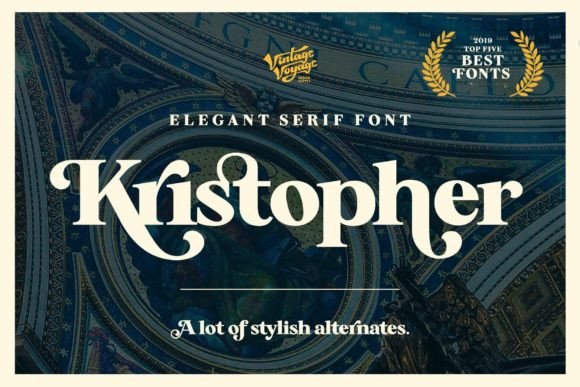
Are you looking for a versatile and elegant serif font that can bring a retro influence to your design projects? Look no further than Kristopher Font, created by vintagevoyageco.
Kristopher Font is an impressive serif font that offers a perfect balance of contrast lines and curves, making it a perfect choice for creating stunning and sophisticated designs. This typeface is a mix of contemporary and vintage, and it offers classic curves that can be adapted to any design project.
One of the remarkable features of Kristopher Font is its ability to transform its personality depending on the context in which it's used. In one application, it can come across as conservative and reserved, while in another, it can seem playful and upbeat. It can be sweet and romantic or mischievous and even menacing. With Kristopher Font, your imagination is the limit!
This font is perfect for various art-related design projects, including theater posters, book covers, album art, cafe signage, restaurant displays, food blogs, recipe cards, stationery, advertising spreads, logos, product packaging for upscale cosmetics, fragrances, and food, social media imagery, titling, wedding invitations, and event programs.